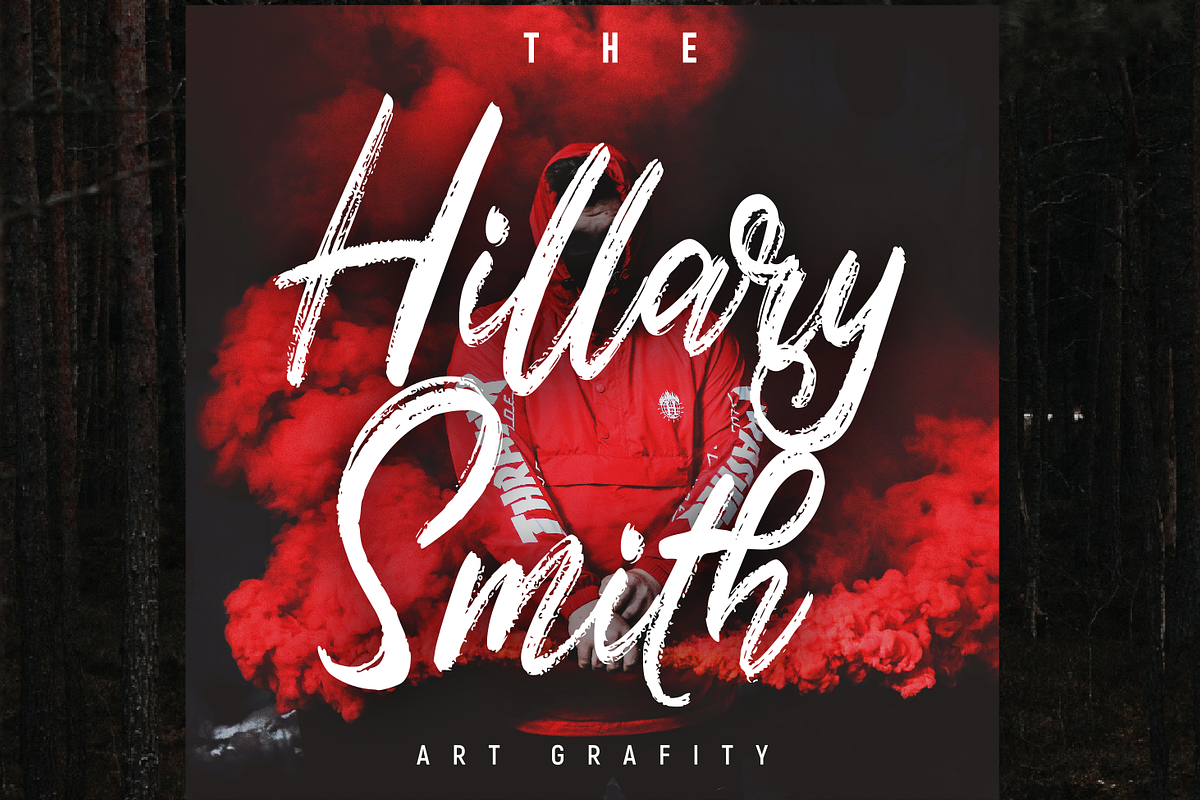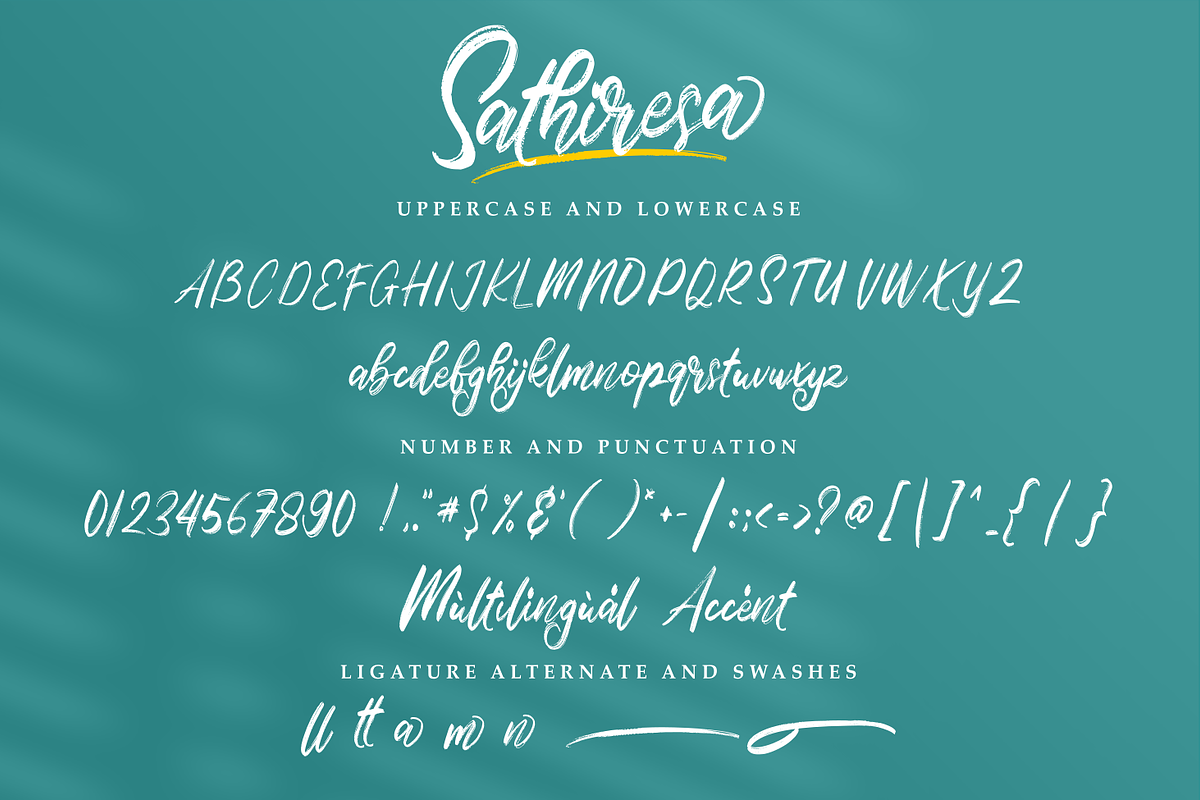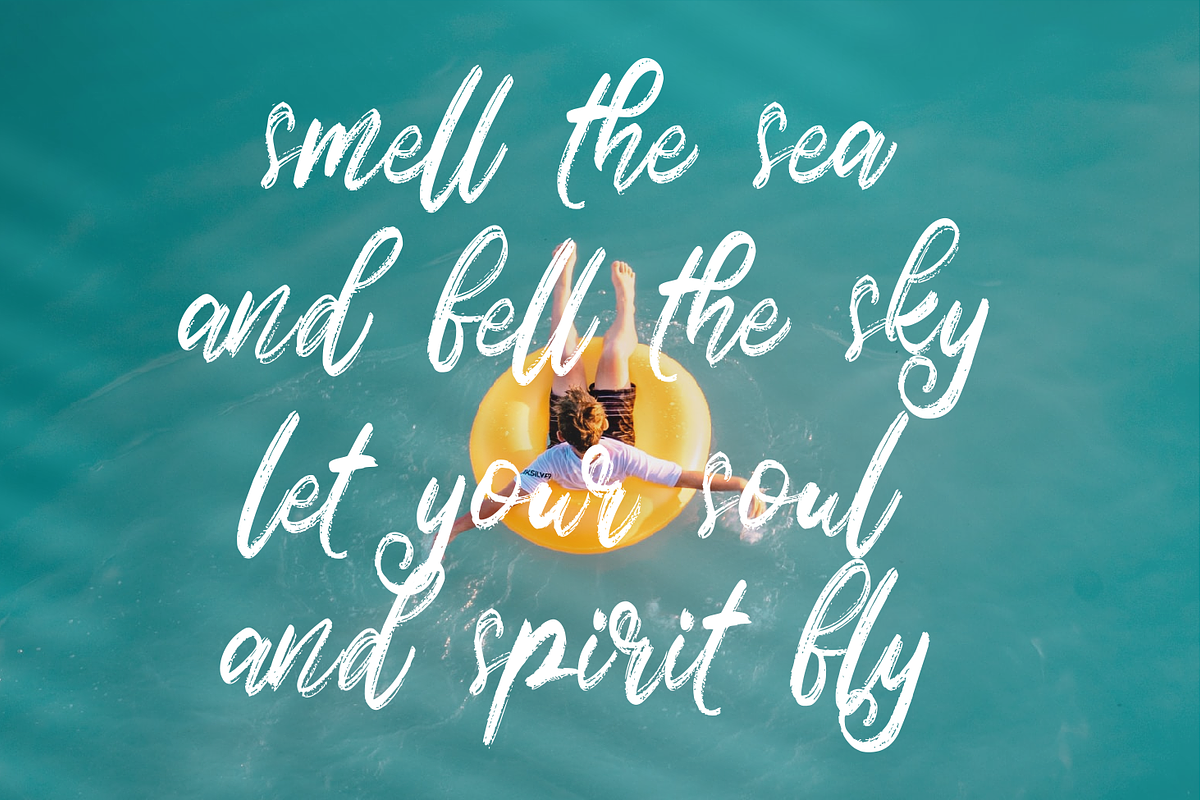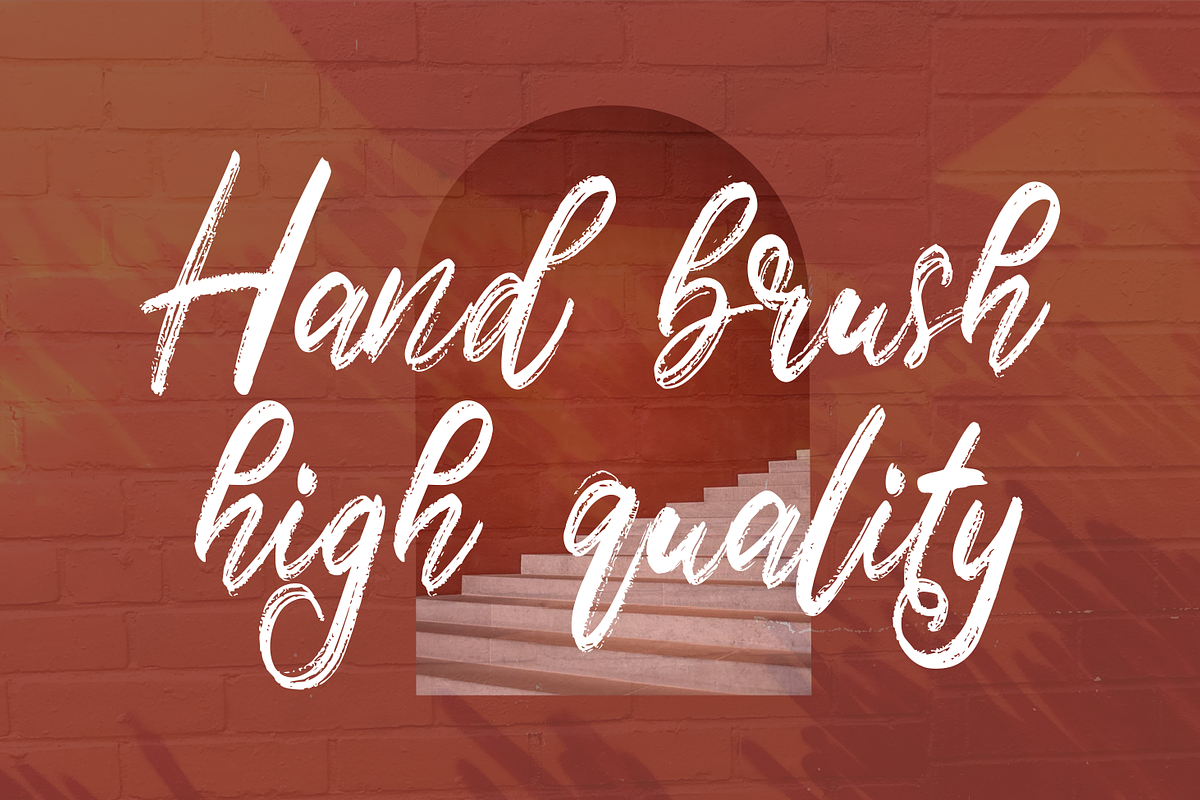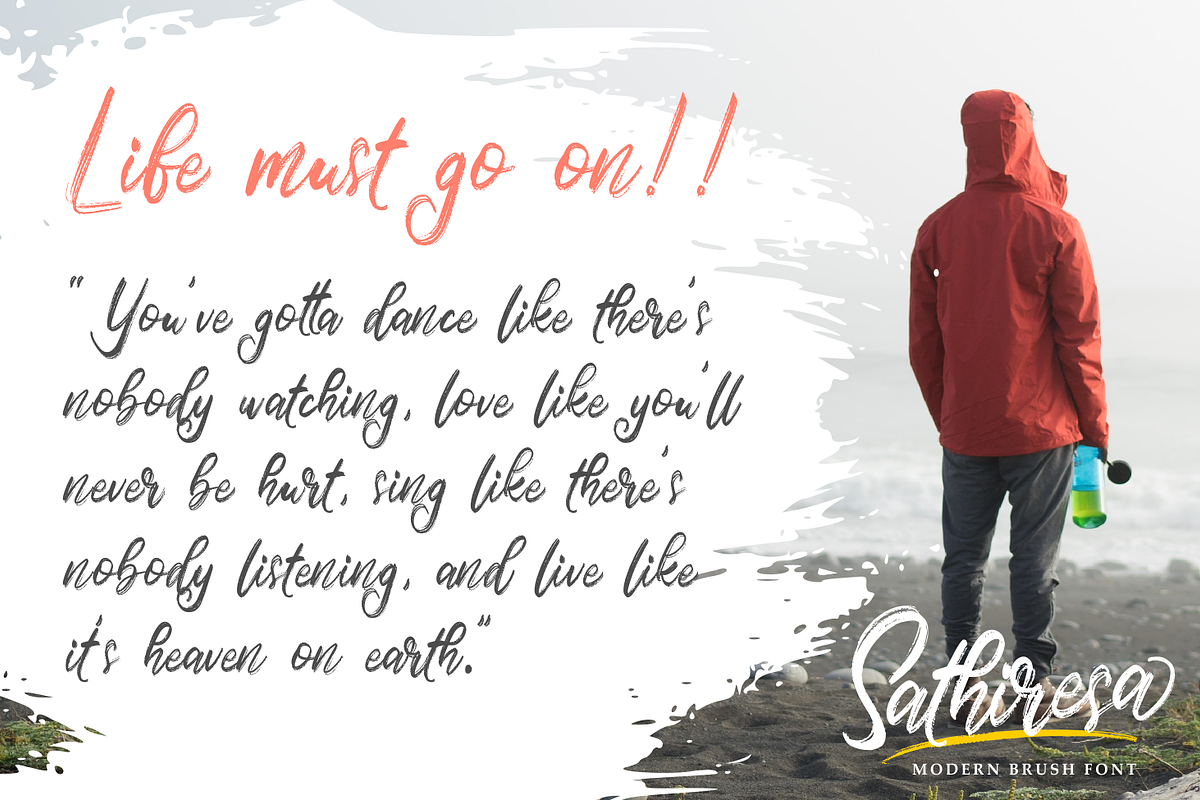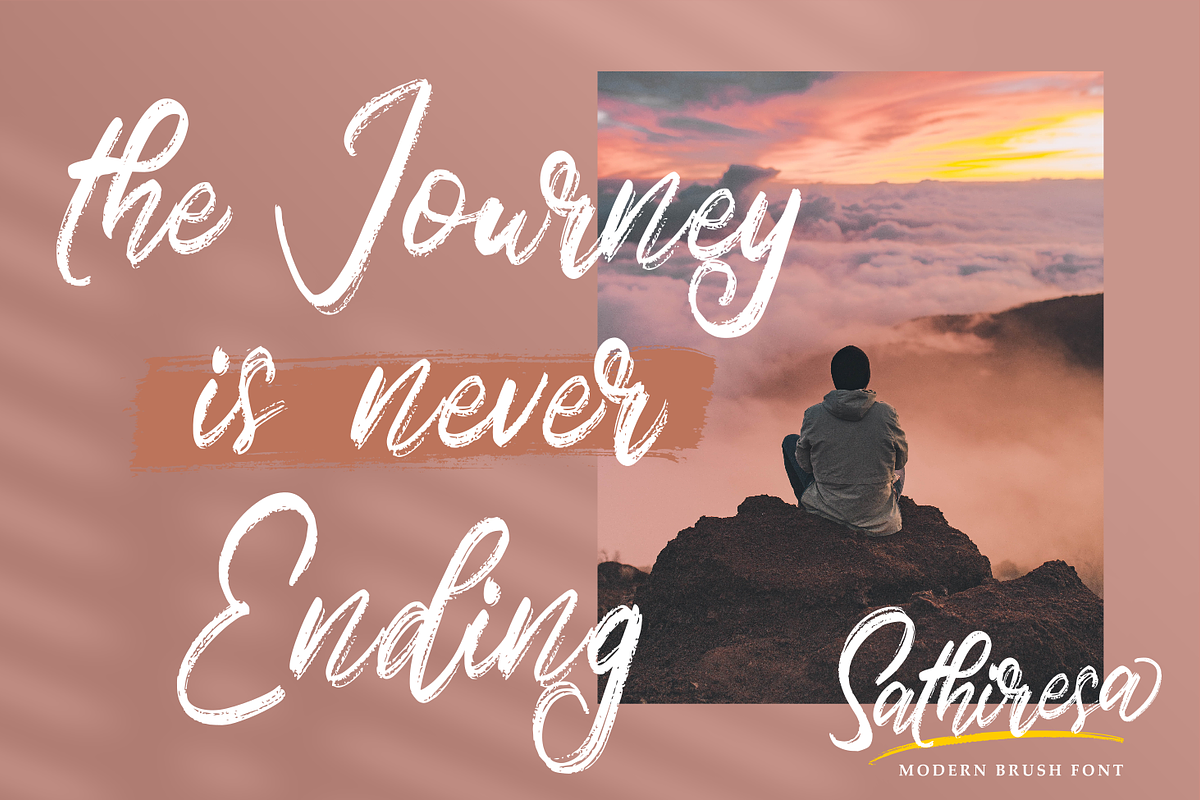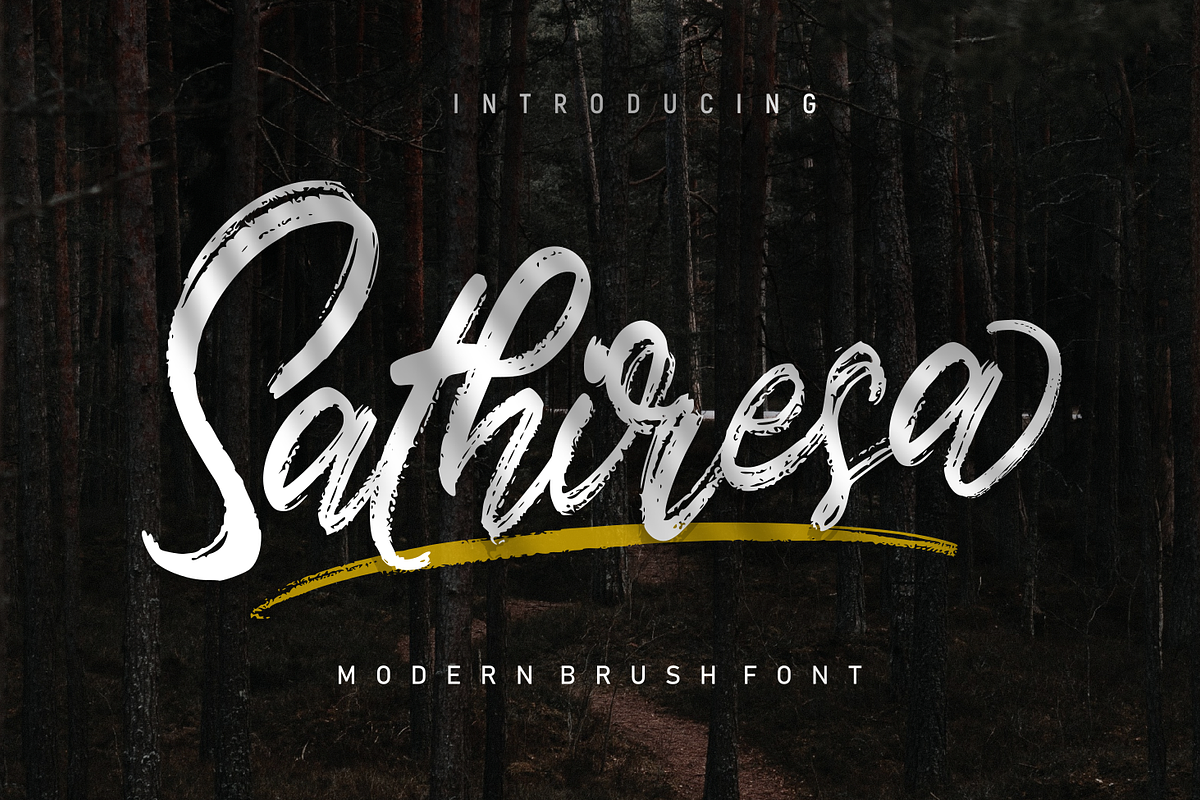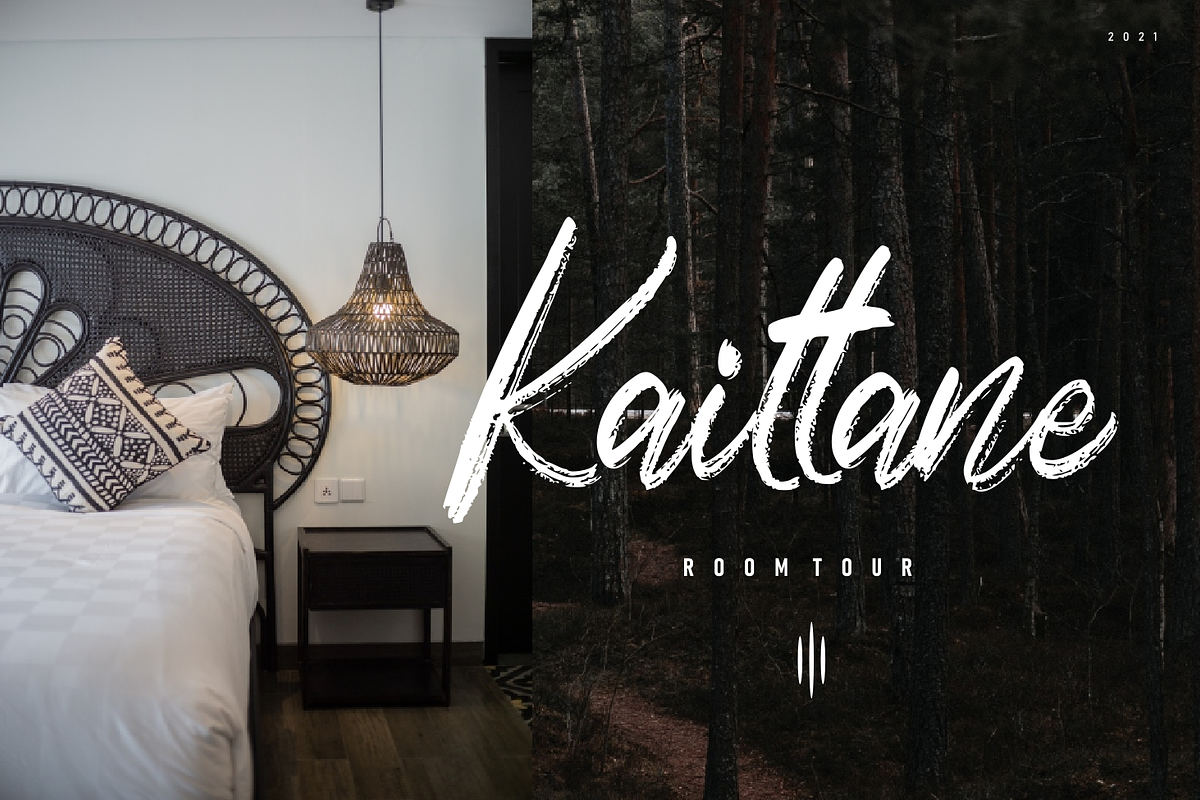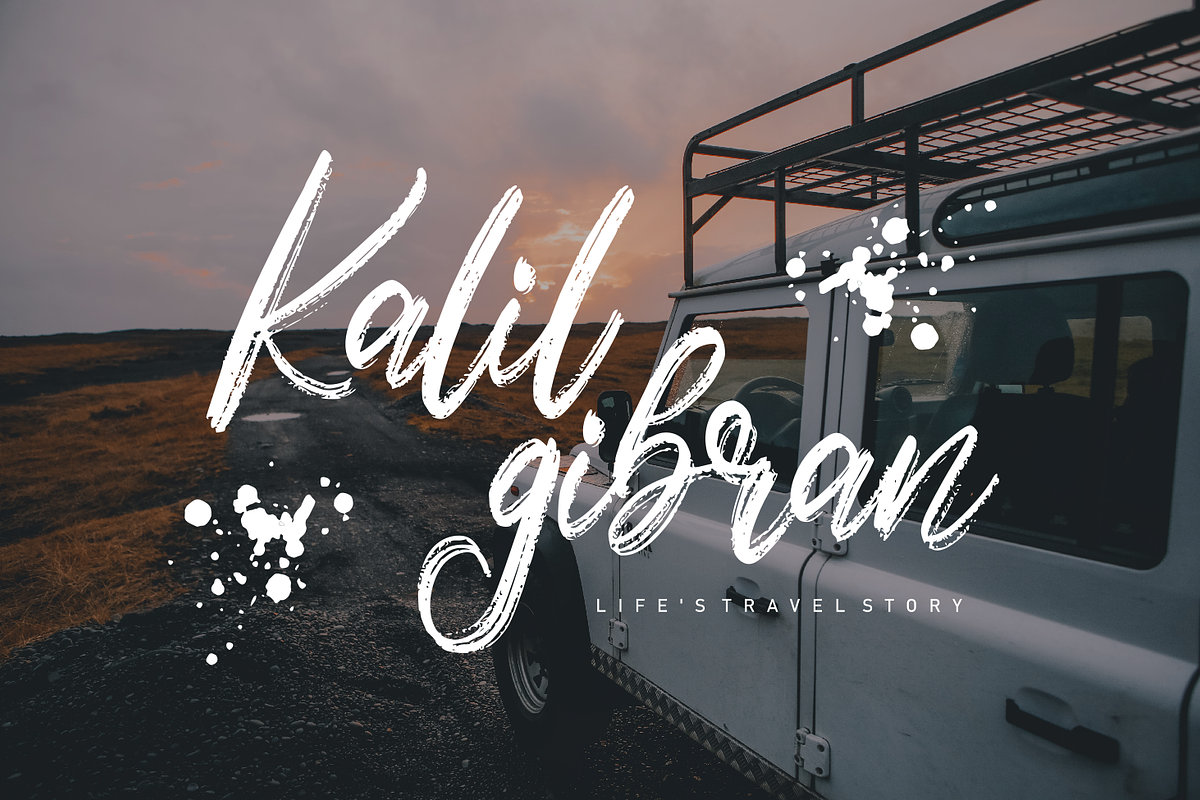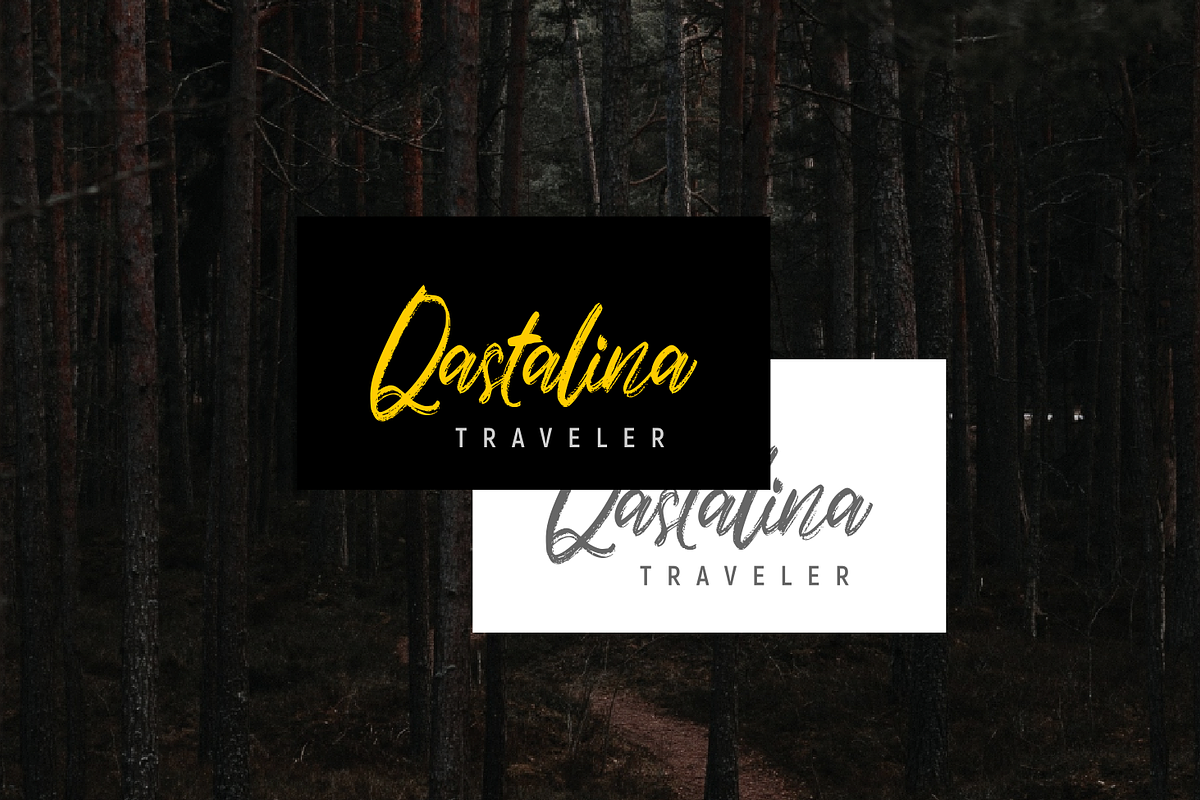
Sathiresa Modern Brush Font
Introduce the Sathiresa font with textured characters. Sathiresa is a handbrush font made with natural hand crafted. Sathiresa can be used for a variety of projects such as stationery invitations, social media, logos, weddings, branding, graphic design with added swashes. and can be combined with a variety of serif fonts to enhance the project you want to work on.